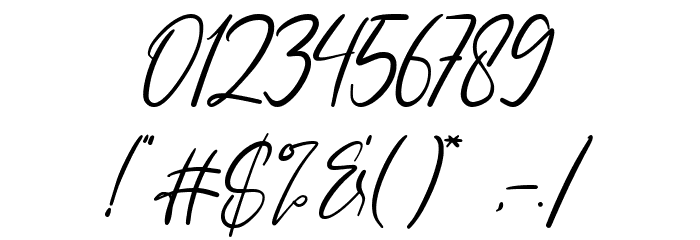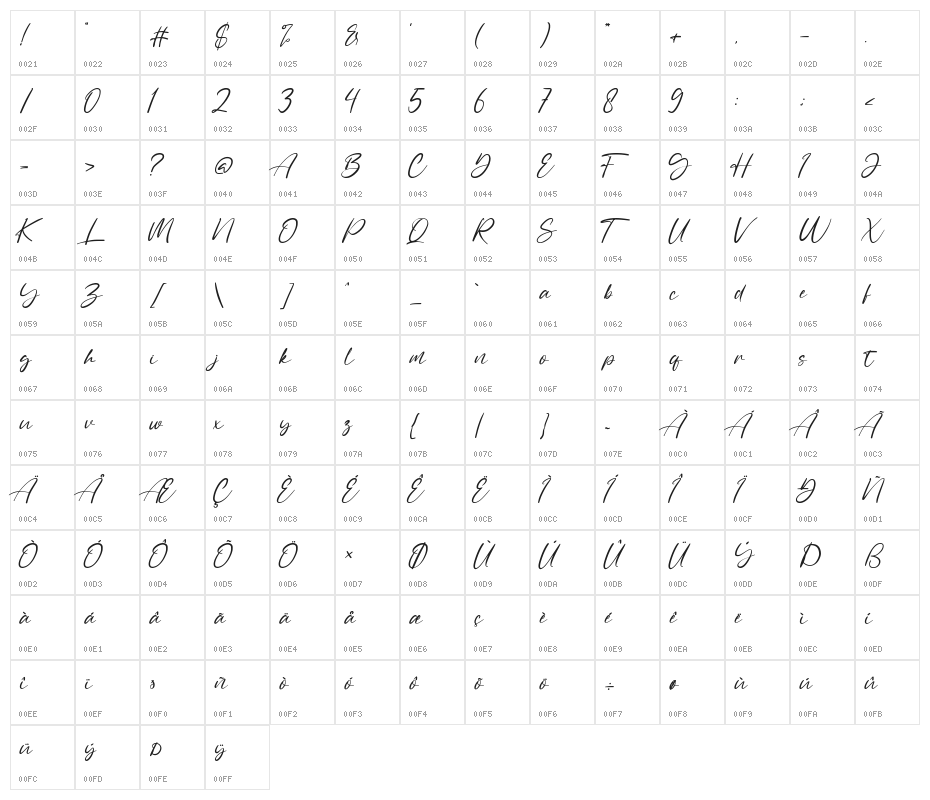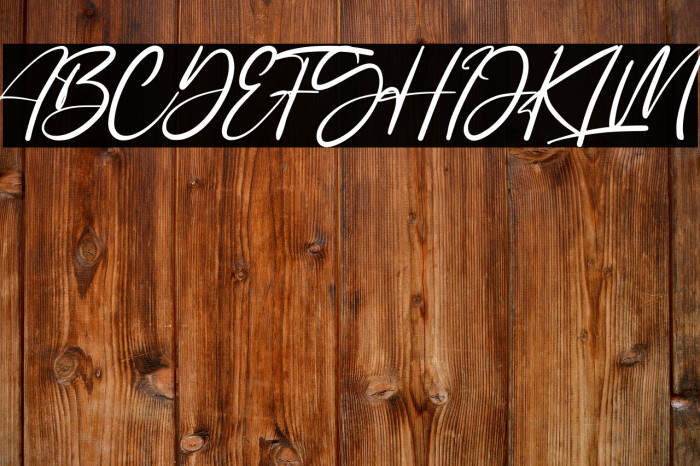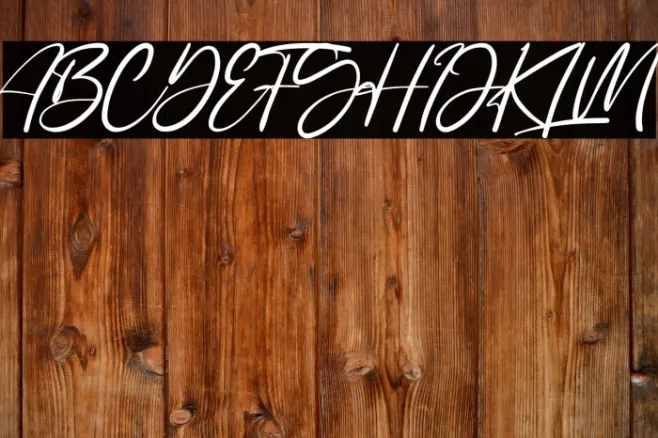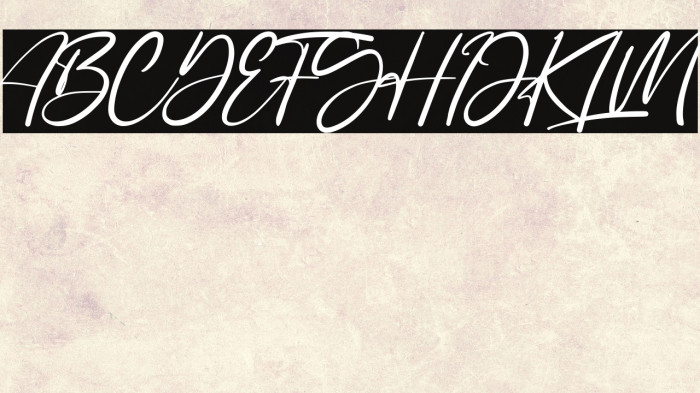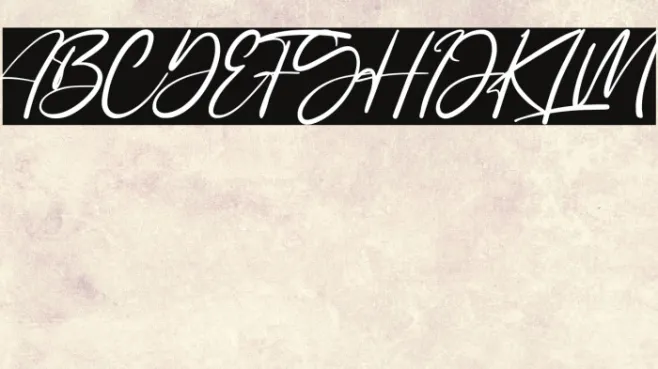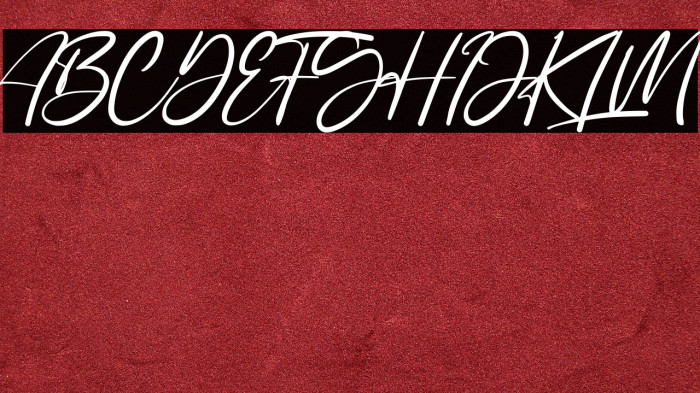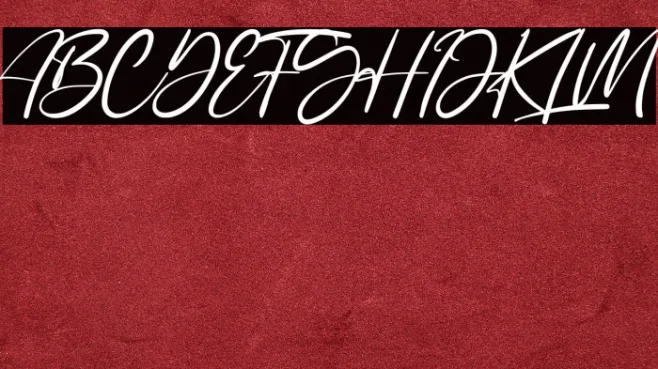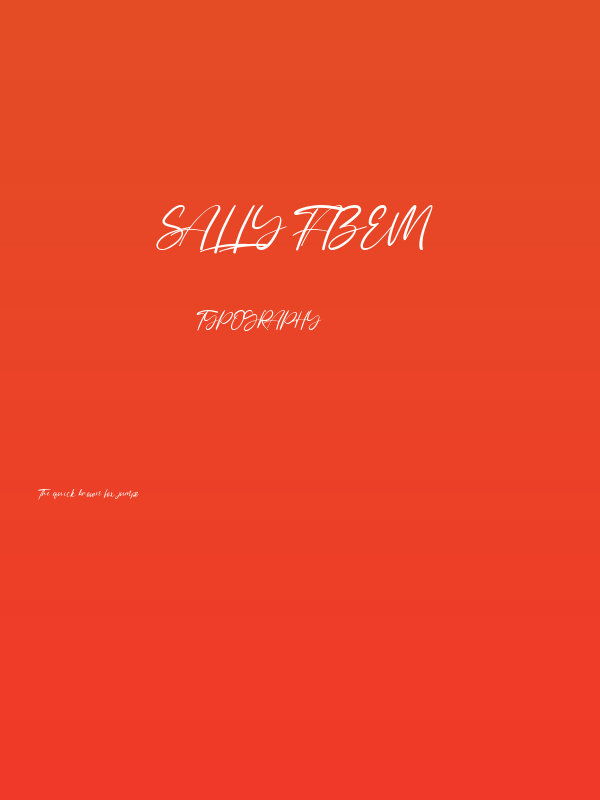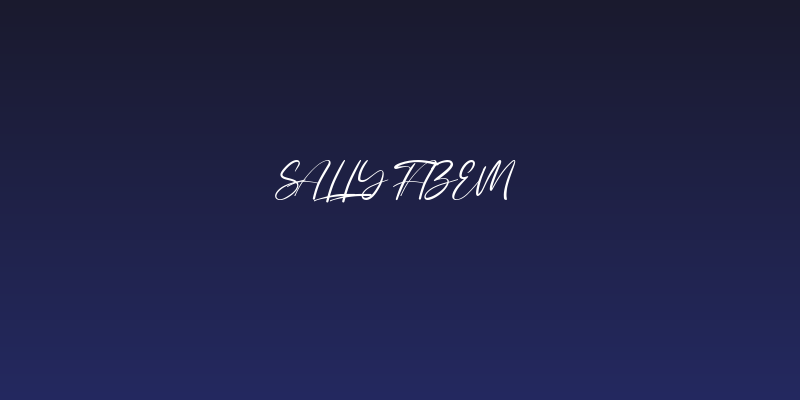
Sally Tazem Font
Sally Tazem Description
This font exudes a dynamic and elegant script style, characterized by its fluid, cursive strokes and a sense of movement. The uppercase letters are bold and sweeping, with distinctive loops and flourishes that add a touch of sophistication. The lowercase letters maintain a consistent flow, complementing the uppercase with their graceful curves. Numbers and special characters are crafted with the same attention to detail, ensuring a cohesive look throughout. This font is perfect for projects that require a personal, handwritten touch, such as invitations, greeting cards, or branding materials.
| Use Case | Logos, Invitations, Personal stationery |
| Proposed Projects | Ideal for wedding invitations, greeting cards, branding, and personal stationery. |